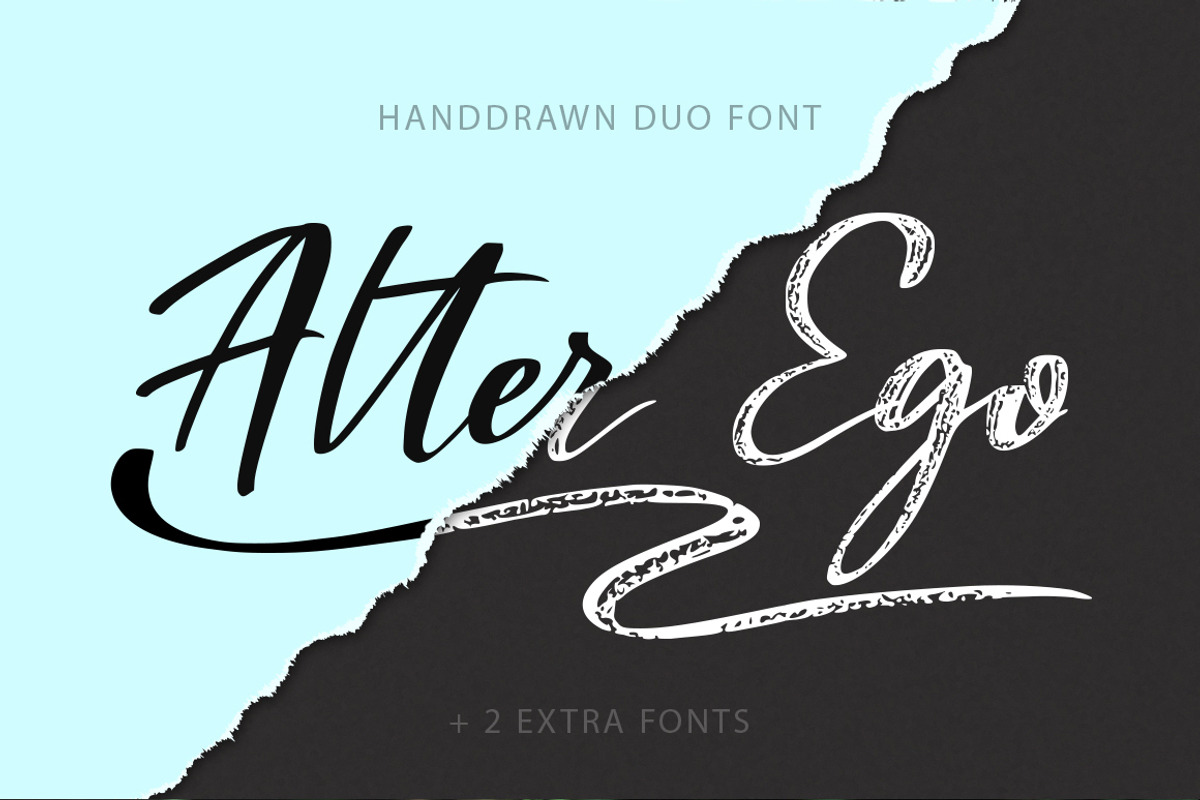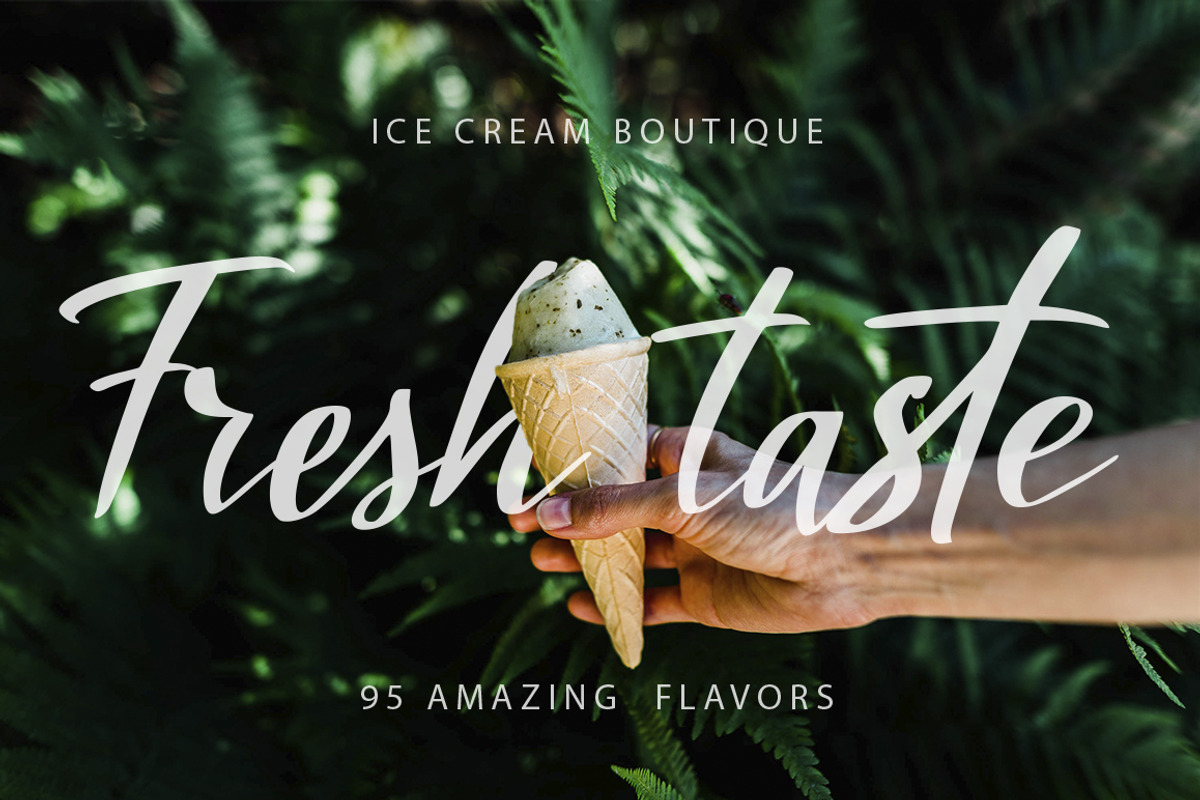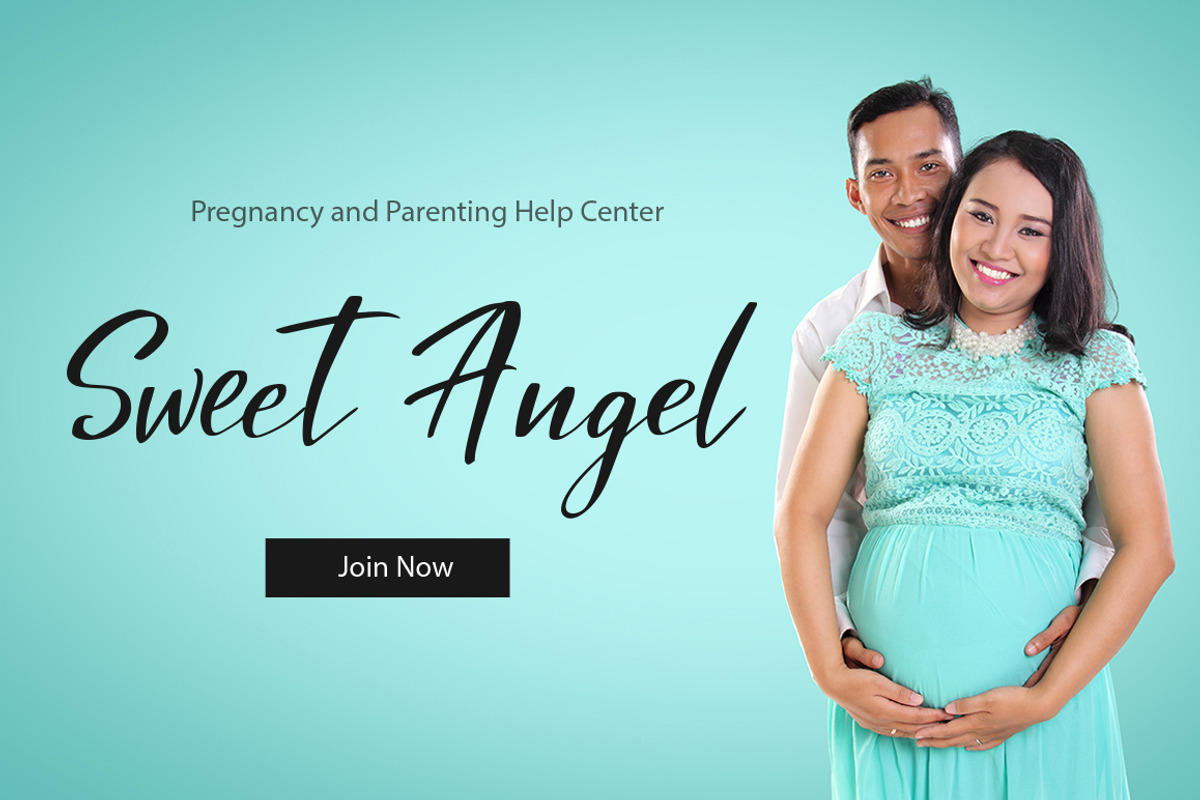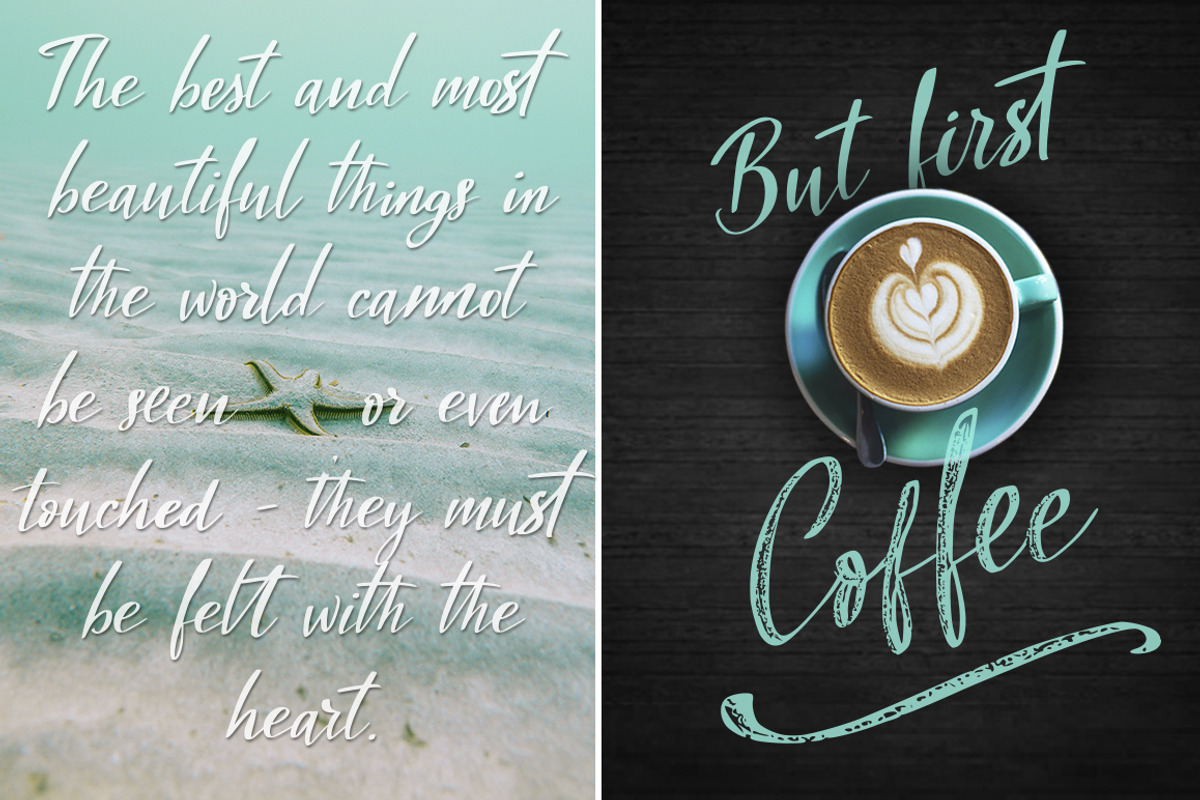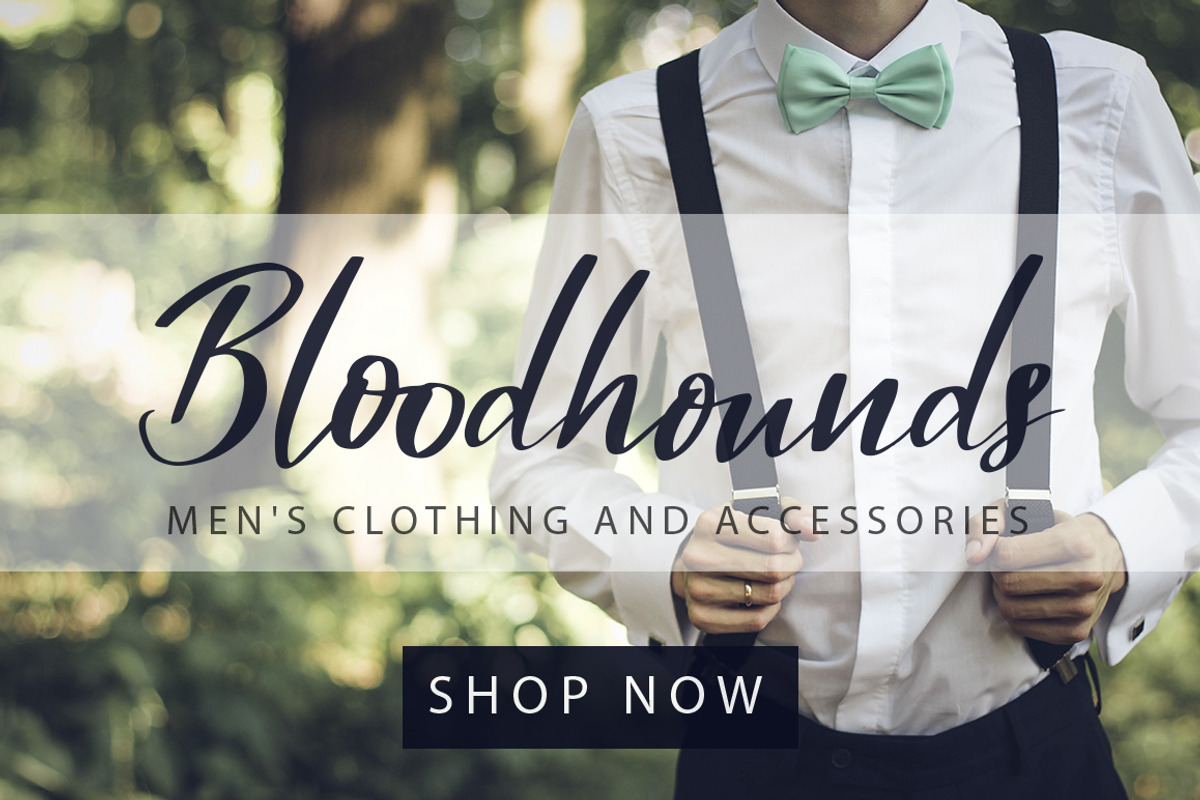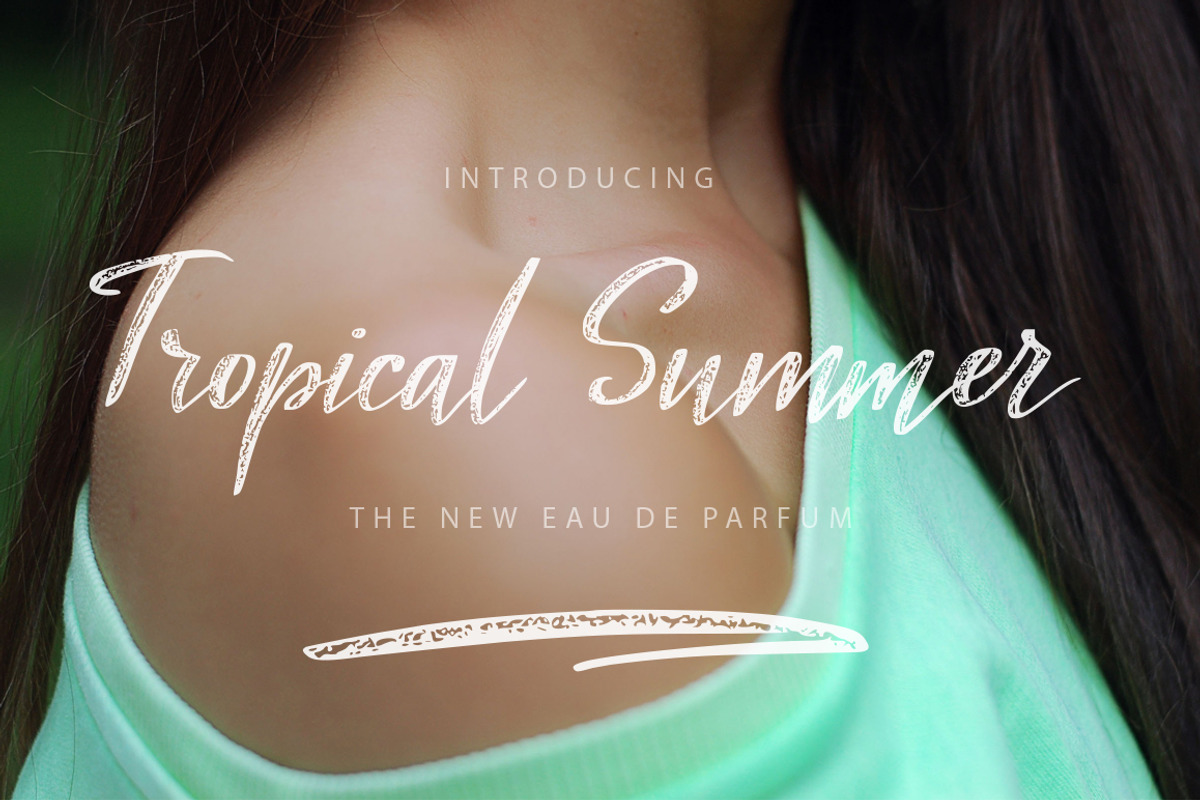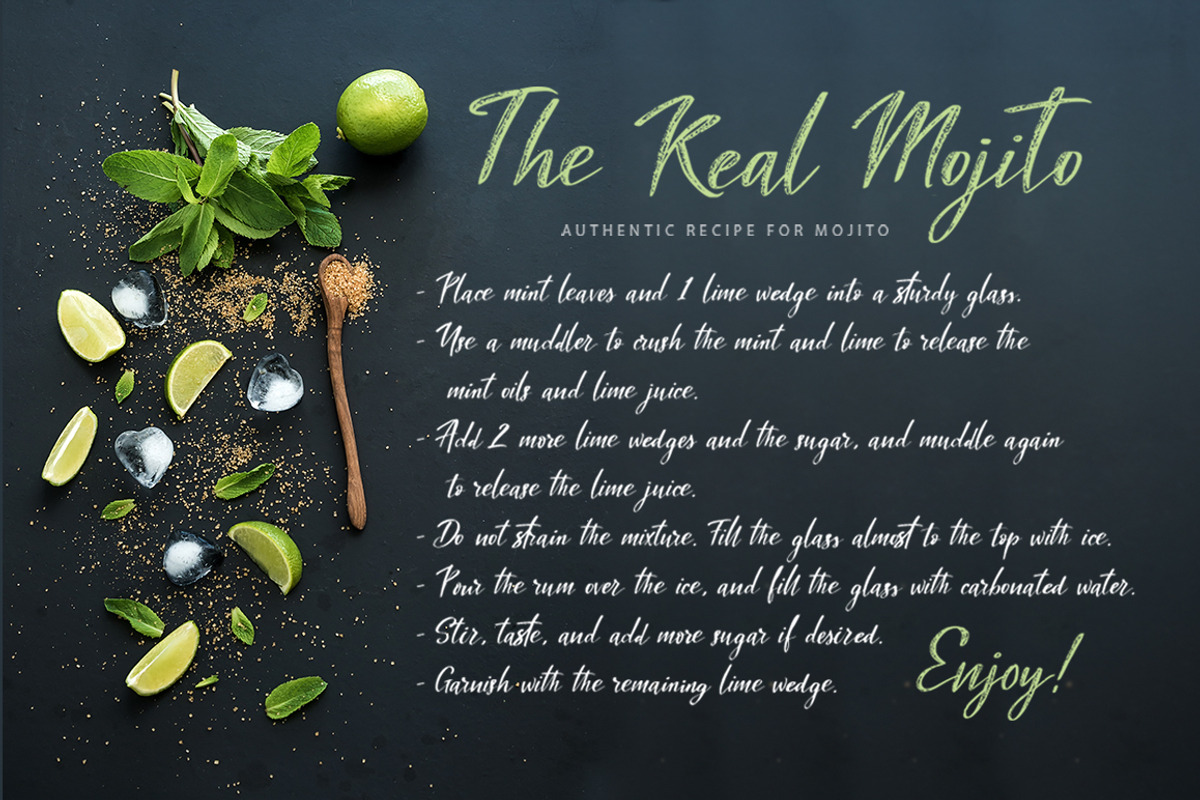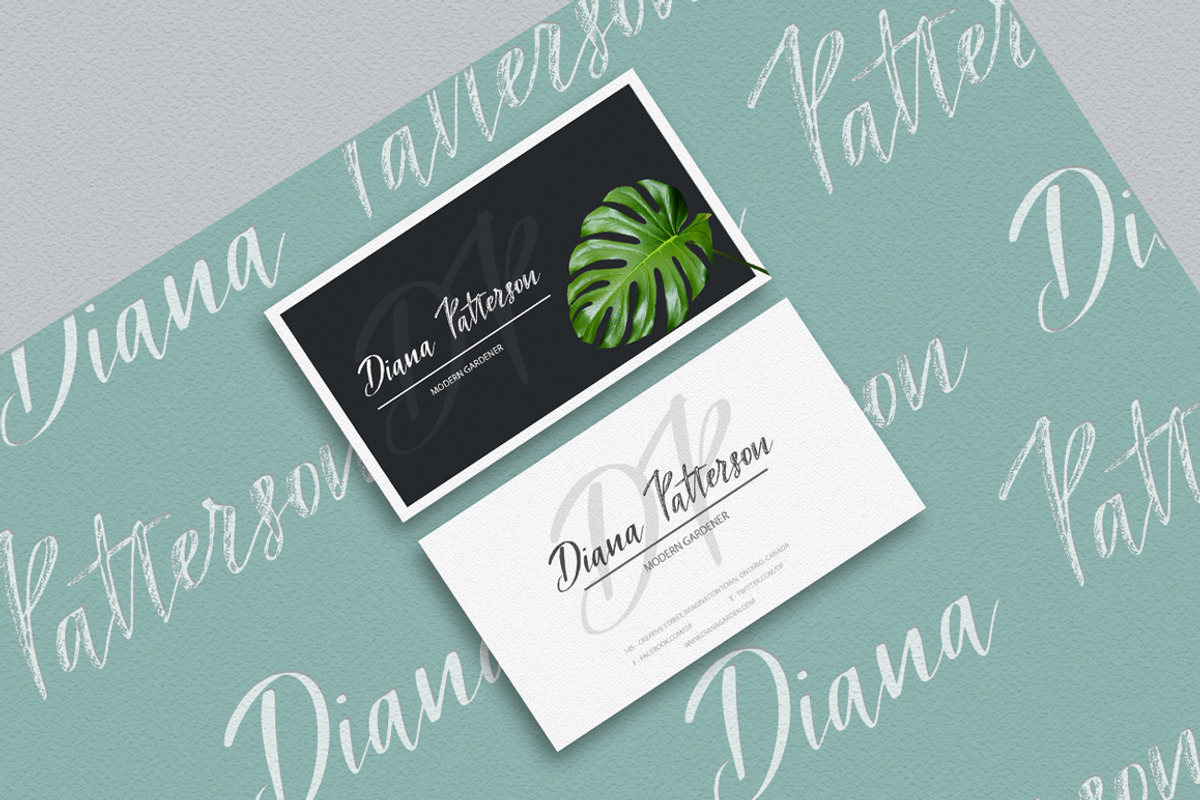
Alter Ego duo font + 2 extra fonts.
IntroducingAlter Ego!A Perfectly Script new font pair with handdrawn two extra fonts.
These two amazing fonts come with clean and textured versions. You will also receive two extra fonts - with textured and clean swashes. Casual style, large amount of ligatures and alternatives in each font are guaranteed to give your text a personal, light, custom-made feel.
Goodlooking and creative, together or apart they were created for beautiful typographic projects, amazing designs, like greeting cards, t-shirts, posters, mugs, branding materials, photography overlays and so much more!